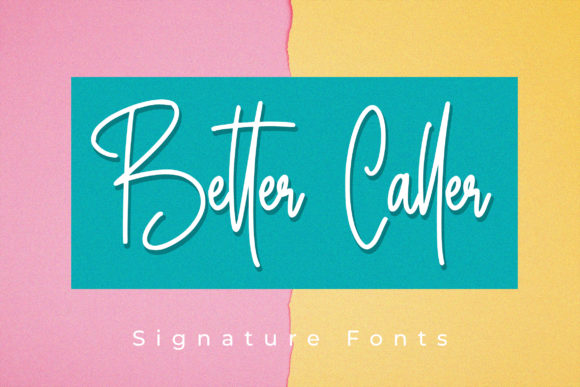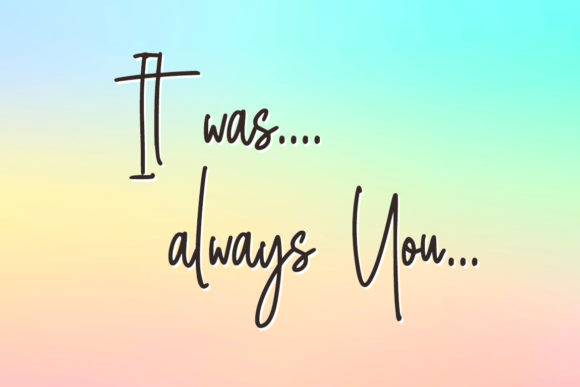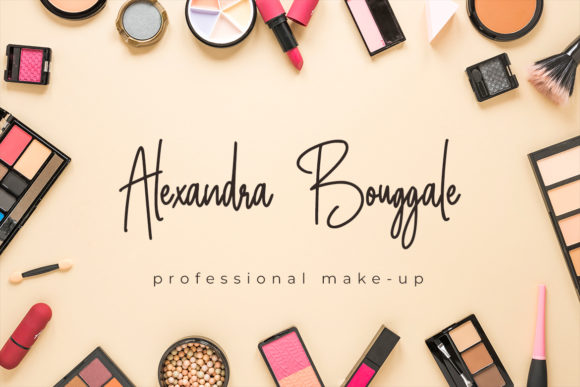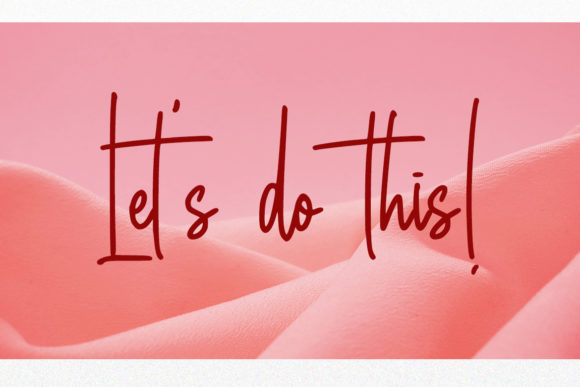
Script Fonts Better Caller Font 0 147 FacebookTwitterPinterestWhatsApp Better Caller Font Poster 2 Better Caller Font Poster 3 Better Caller Font Poster 4 About Better Caller Font Better Caller is an equally sweet and charming script font that’s perfect for giving your designs a unique and personal flavor. DOWNLOAD NOW